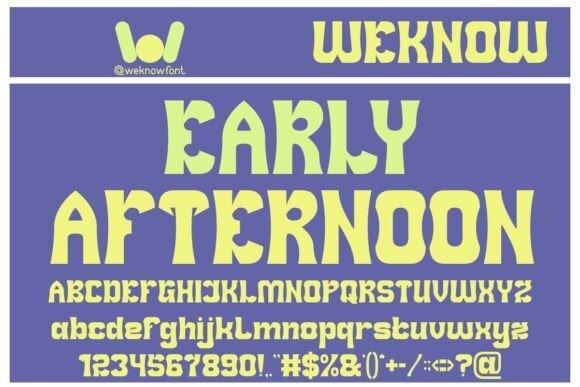
Introduction to Early Afternoon Font
Say hello to Early Afternoon, a uniquely versatile and lively display font guaranteed to enhance all your creative endeavors.
This whimsical font delivers an organic, natural feel, perfect for capturing the spirit of playful freedom in your design compositions With its distinctive character, early afternoon shines when utilized in logos and logotypes, anchoring corporate and brand identity with bold strokes and fanciful flair.